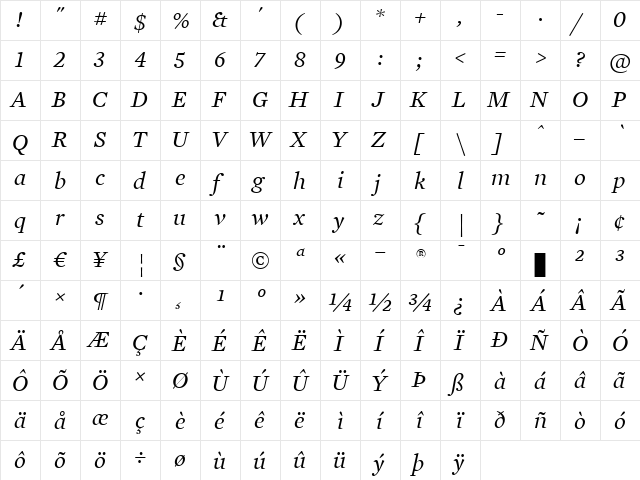
Mercury Text G1 Italic
Design Context for Mercury Text G1 Typeface
Mercury Text G1 offers clean, dependable letterforms without strong stylistic allegiance, making it a practical choice for designers who need flexibility. The dynamic lean of this cut emphasises speed and emphasis in any layout.
Pro Tip: Use Mercury Text G1 for emphasis, pull quotes, and subheadings where its slanted energy can add rhythm to the layout.